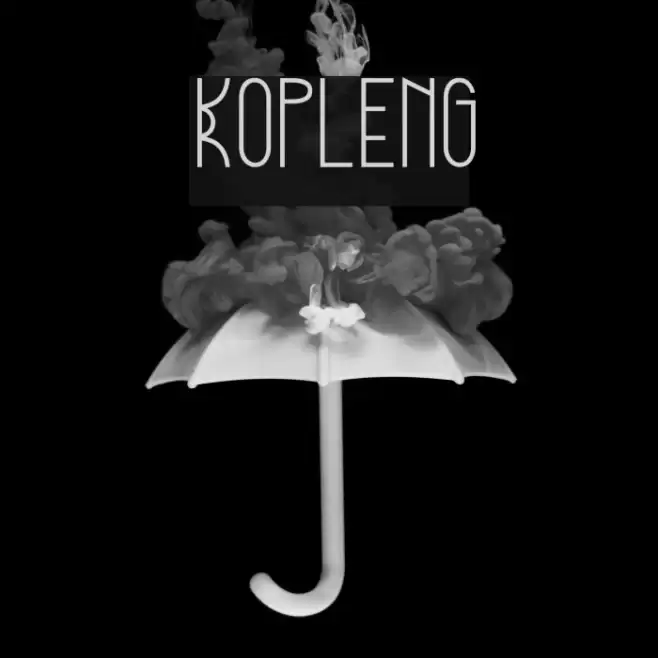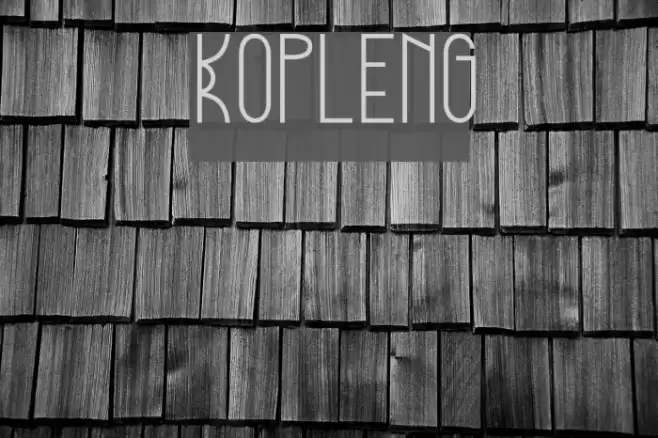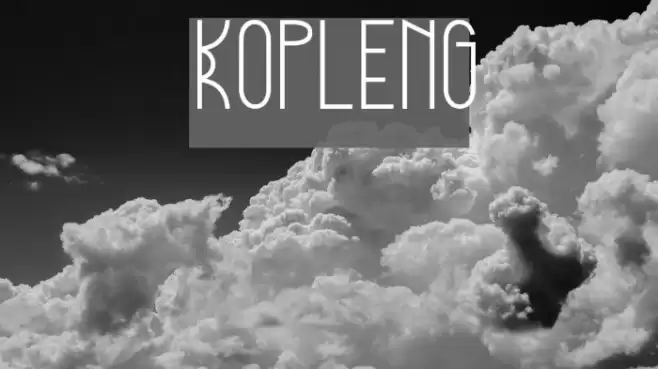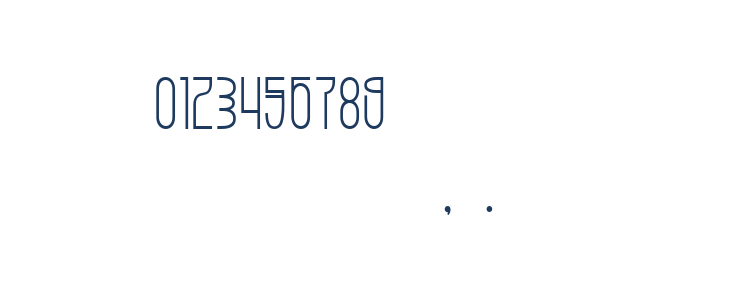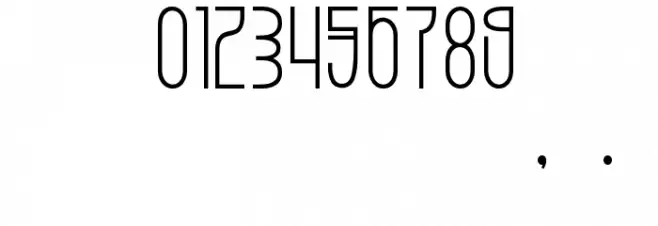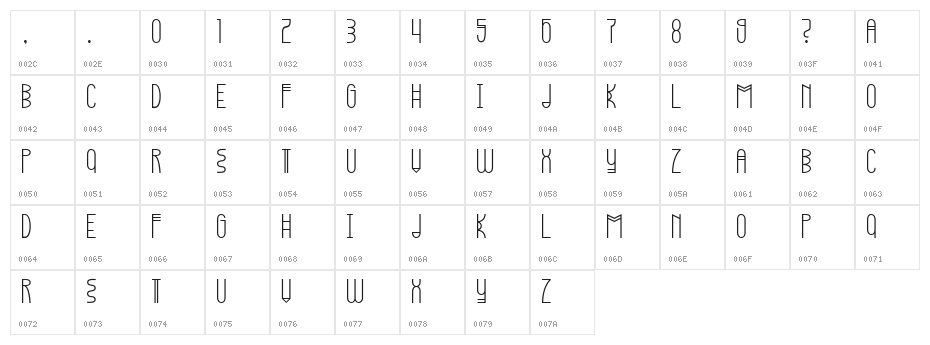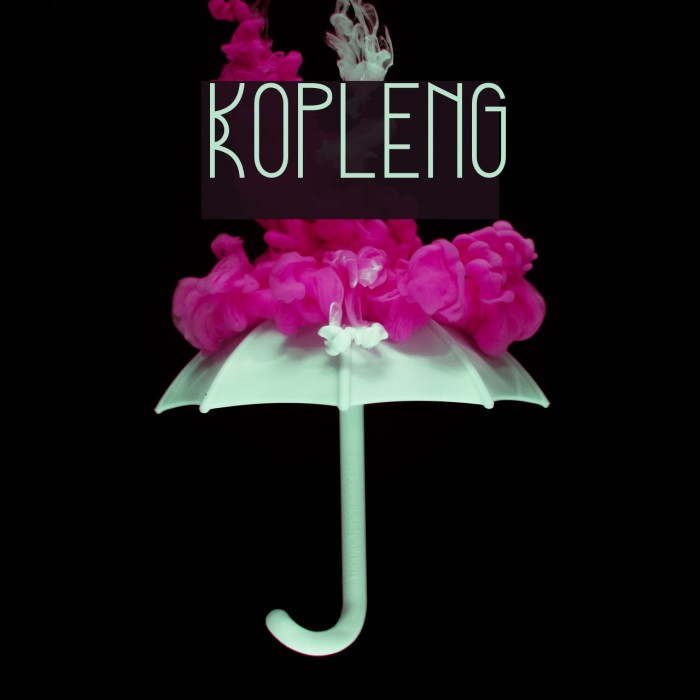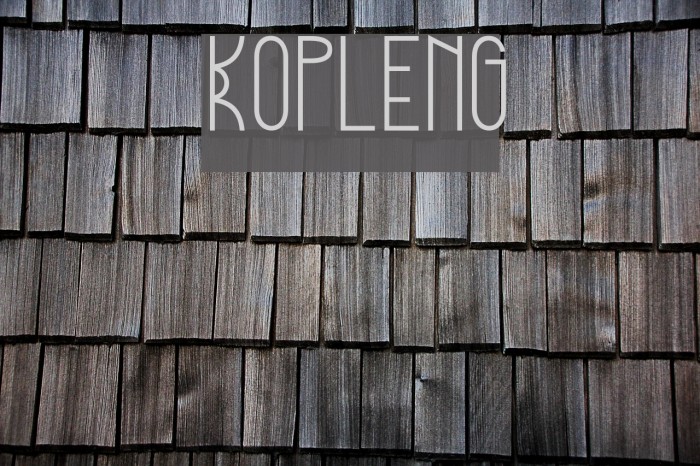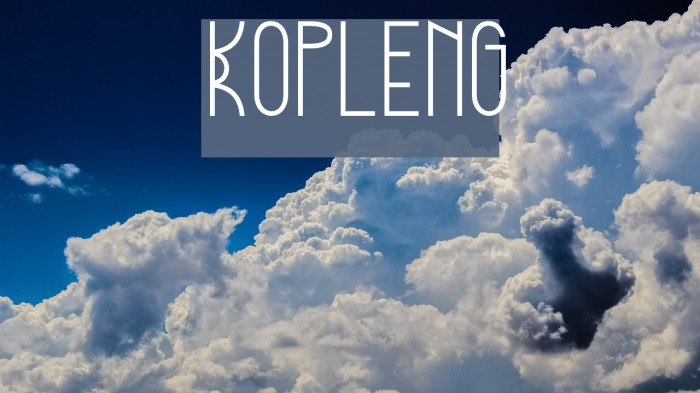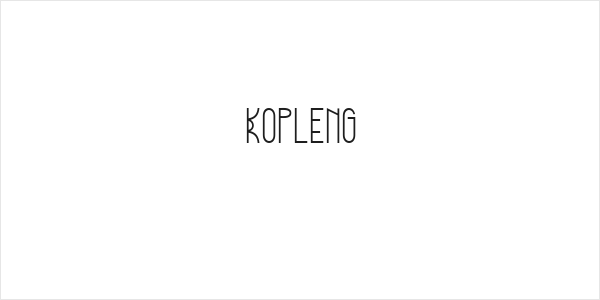
Kopleng Font
Kopleng Description
This font features a unique and modern design with geometric elements and a distinctively narrow structure. The uppercase letters are characterized by sharp angles and clean lines, creating a futuristic and stylish appearance. The lowercase letters maintain the geometric theme with consistent line thickness, adding to the overall sleek look. The numerals are equally modern, with a uniform height and a minimalist style. This font's design is both innovative and versatile, making it suitable for a variety of creative applications.
A modern, geometric font with a narrow, stylish design from Uncategorized fonts.
- Proposed Projects: Ideal for branding, logos, posters, and digital media that require a contemporary and distinctive look.